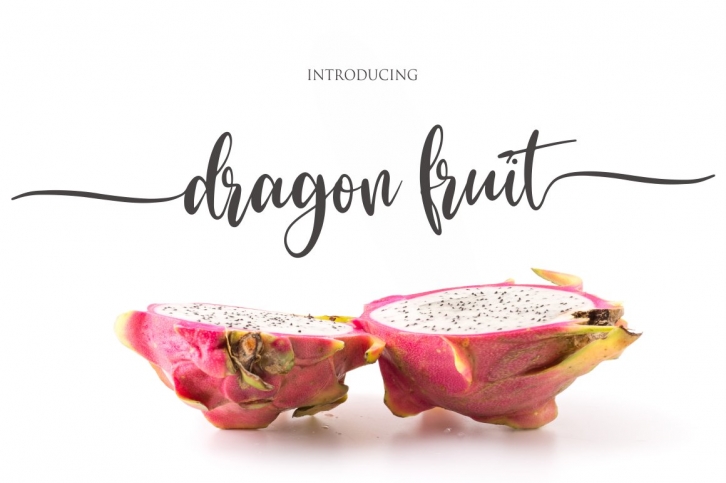
dragon fruit is a great font that was designed by NJ Studio. Imagine the amount of combinations you can create using this font! The archive is 3.74 MB and it was released on March 31, 2021. dragon fruit looks beautiful on wedding invitations, greeting cards, logos, posters, labels, t-shirt designs, logos, business cards and is perfect for use in ink or watercolor works, fashion, magazines, packaging and food menus, children's books and more!